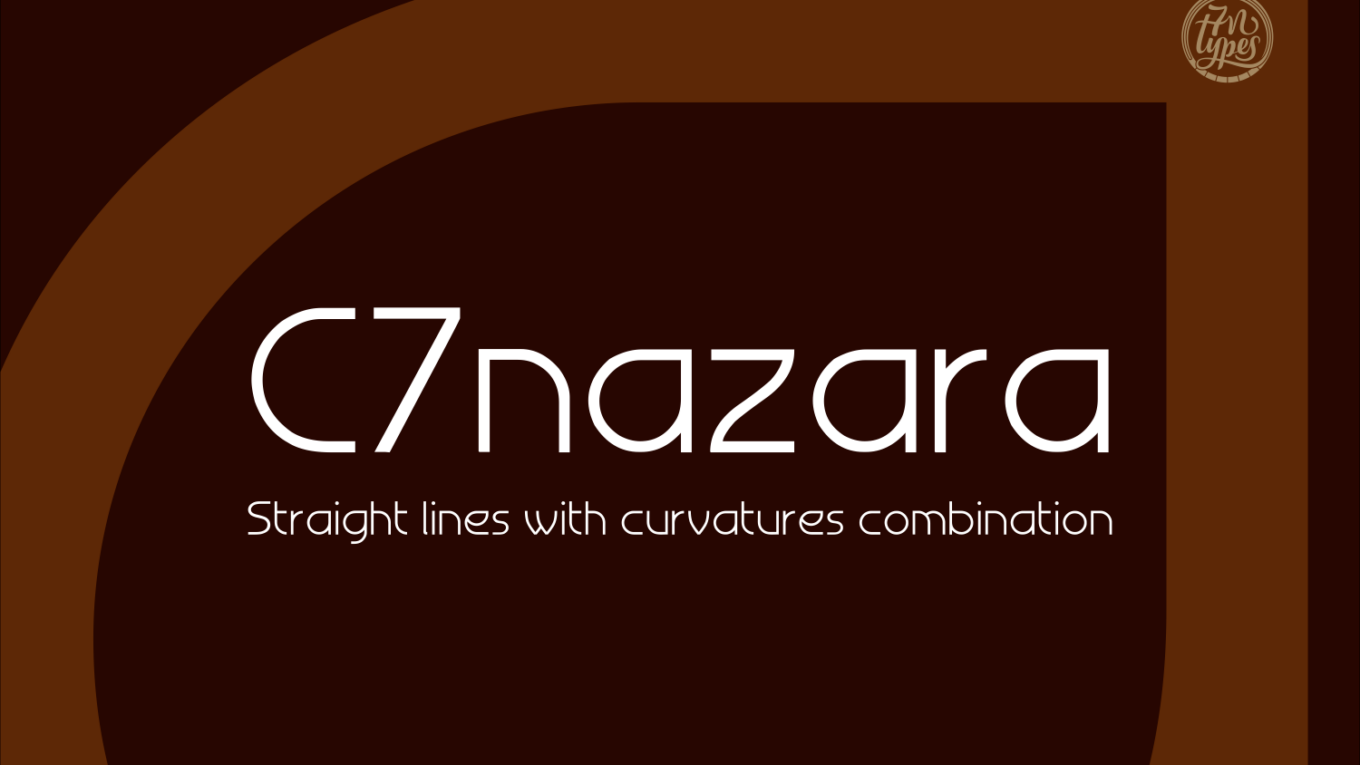
C7nazara Font: A Unique Sans Serif Font for Creative Expression
In the world of typography, fonts play a crucial role in conveying messages, expressing emotions, and creating visual identities. For designers, crafters, and creative enthusiasts, finding the right font can make all the difference in bringing their ideas to life. This is where C7nazara comes in – a distinctive sans serif font that combines straight lines with curvatures, making it a standout in the realm of typography.
The C7nazara Advantage: A Blend of Straight and Curved Lines
C7nazara is a one-of-a-kind font that seamlessly merges straight lines with curvatures, resulting in a unique and expressive sans serif font. This distinctive blend of lines and curves gives C7nazara its characteristic flair, making it perfect for designers and crafters looking to add a touch of personality to their work.
The straight lines in C7nazara provide a sense of stability and structure, while the curvatures add a touch of elegance and sophistication. This harmonious balance between straight and curved lines makes C7nazara an incredibly versatile font, suitable for a wide range of design applications, from logos and branding to packaging and digital media.
Expressive and Unique: The C7nazara Difference
C7nazara is more than just a font – it’s an expression of creativity and individuality. Its unique design ensures that it stands out in a crowd, making it perfect for designers and crafters who want to leave a lasting impression. Whether you’re working on a personal project or a client’s brief, C7nazara is sure to make your design shine.
The expressive nature of C7nazara makes it ideal for use in a variety of design contexts, including:
- Logo design: C7nazara’s unique blend of straight and curved lines makes it perfect for creating memorable and impactful logos.
- Branding: Use C7nazara to create a distinctive brand identity that sets you apart from the competition.
- Packaging: Add a touch of personality to your packaging designs with C7nazara’s expressive and eye-catching font.
- Digital media: Use C7nazara to create engaging and interactive digital content that captures your audience’s attention.
Why Choose C7nazara?
With so many fonts available, why choose C7nazara? Here are just a few reasons why C7nazara stands out:
- Unique design: C7nazara’s blend of straight and curved lines makes it a one-of-a-kind font that’s sure to turn heads.
- Versatility: C7nazara is suitable for a wide range of design applications, from logos and branding to packaging and digital media.
- Expressive: C7nazara’s unique design ensures that it adds a touch of personality to any design project.
- Ease of use: C7nazara is easy to read and works well in a variety of sizes, making it perfect for use in both print and digital media.
In conclusion, C7nazara is a unique and expressive sans serif font that’s sure to leave a lasting impression. Its blend of straight lines and curvatures makes it a standout in the world of typography, and its versatility ensures that it’s suitable for a wide range of design applications. Whether you’re a designer, crafter, or creative enthusiast, C7nazara is a font that’s sure to inspire and elevate your work.